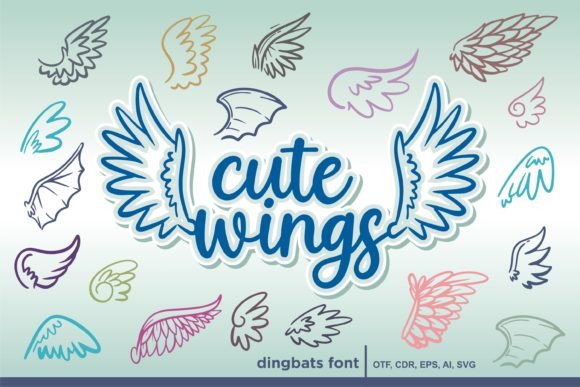
Welcome to the world of Cute Wings, the ultimate doodle notes font that will bring life and color to your designs! Created by the brilliant onoborgol, this font is a masterpiece in its own right.
Cute Wings is a cool and useful dingbats font that can add a touch of creativity and whimsy to any project. Whether you are a graphic designer, a student, or a DIY enthusiast, this font will be an incredible asset to your fonts’ library. With Cute Wings, you will be able to create unique and eye-catching designs that are sure to impress.
What makes Cute Wings stand out from other fonts in its category is its ability to add personality and emotion to your designs. Whether you want to express joy, excitement, or playfulness, Cute Wings has a wide range of options to choose from. Its fun and quirky characters will bring life and movement to your projects, making them stand out from the crowd.
Best Fonts For Doodle Notes? Look no further than Cute Wings! This font is the perfect tool for all your doodling needs. With its wide variety of characters, you can easily create intricate designs and embellishments that are sure to impress. Whether you want to add a touch of whimsy to your planner, create unique bullet journal spreads, or design fun stickers, Cute Wings has got you covered.